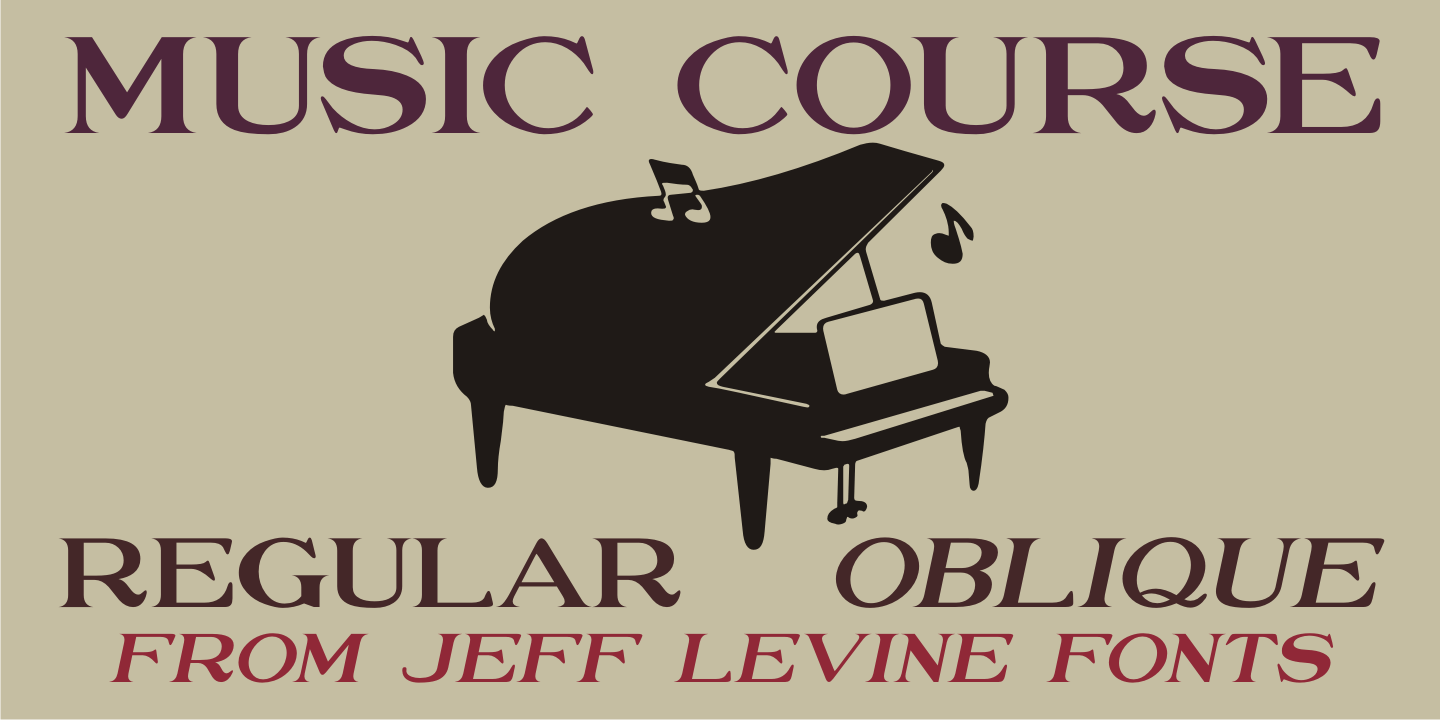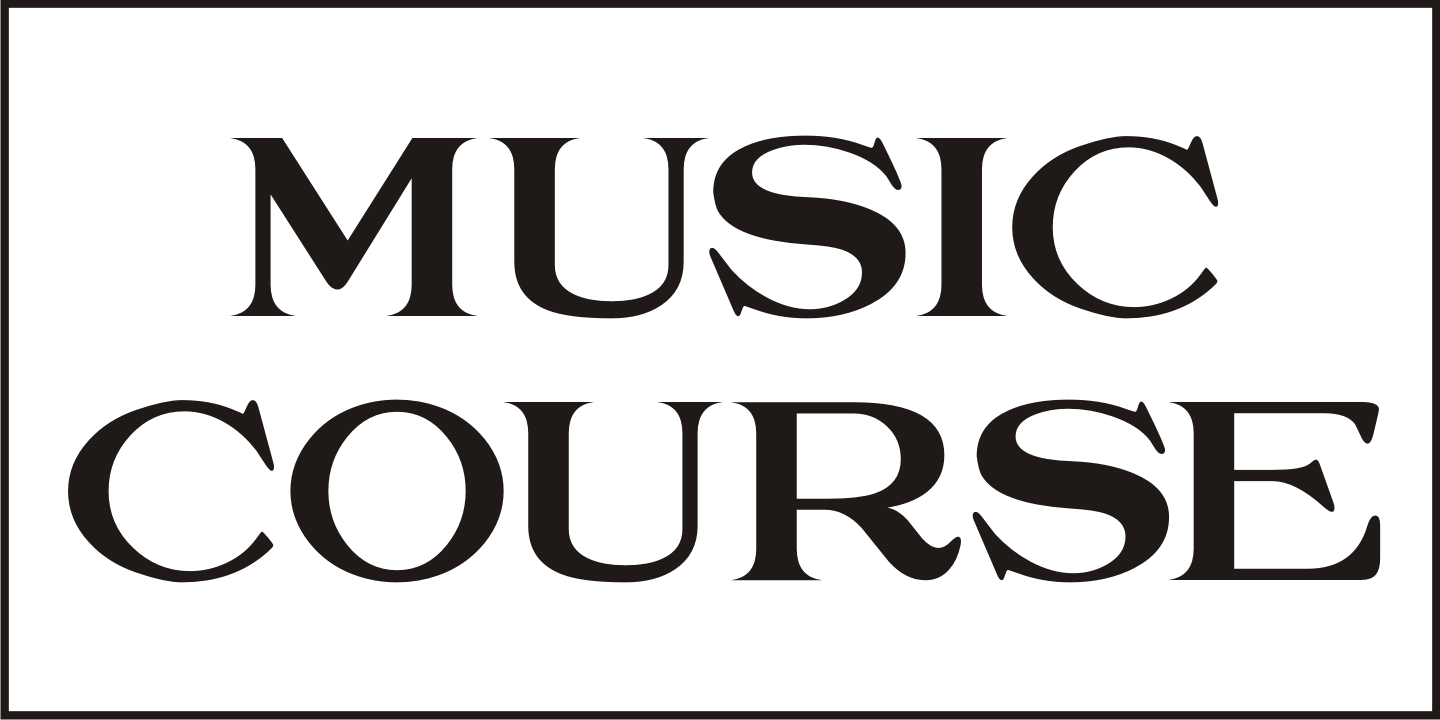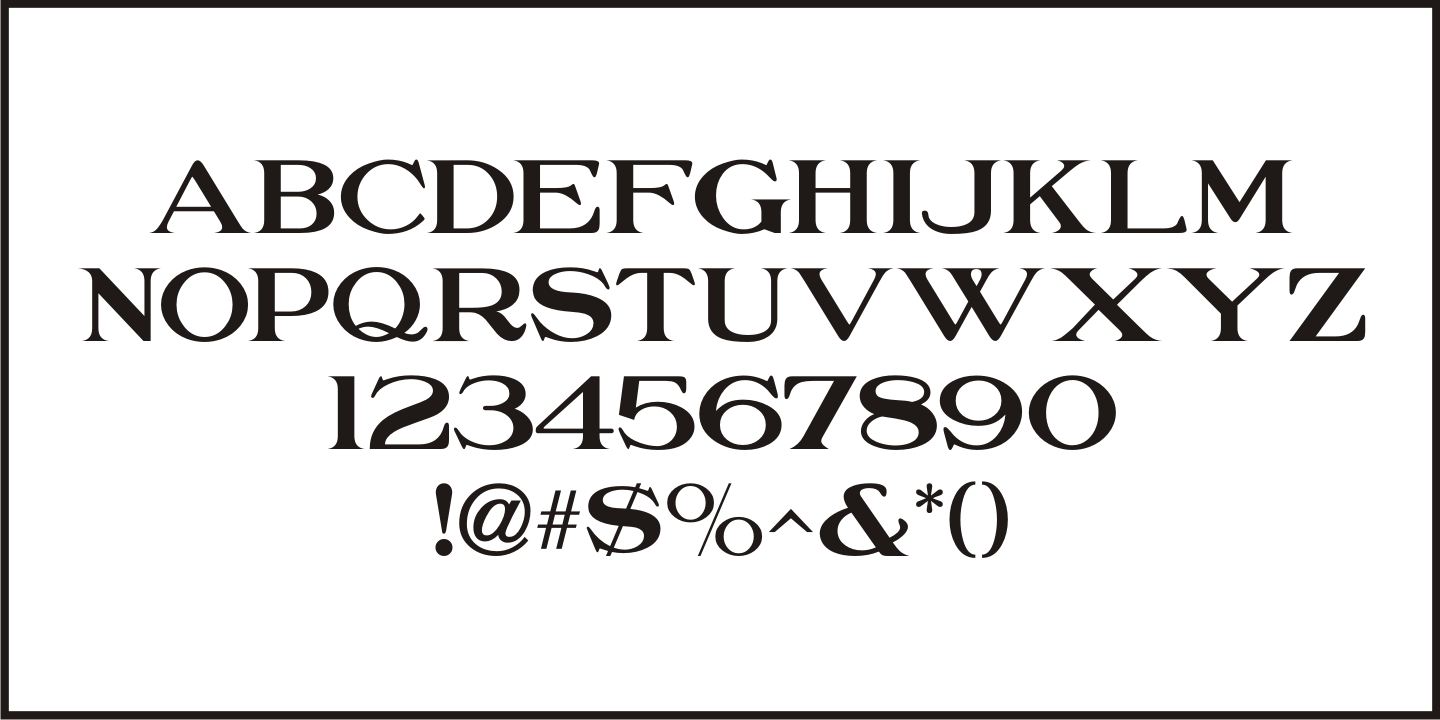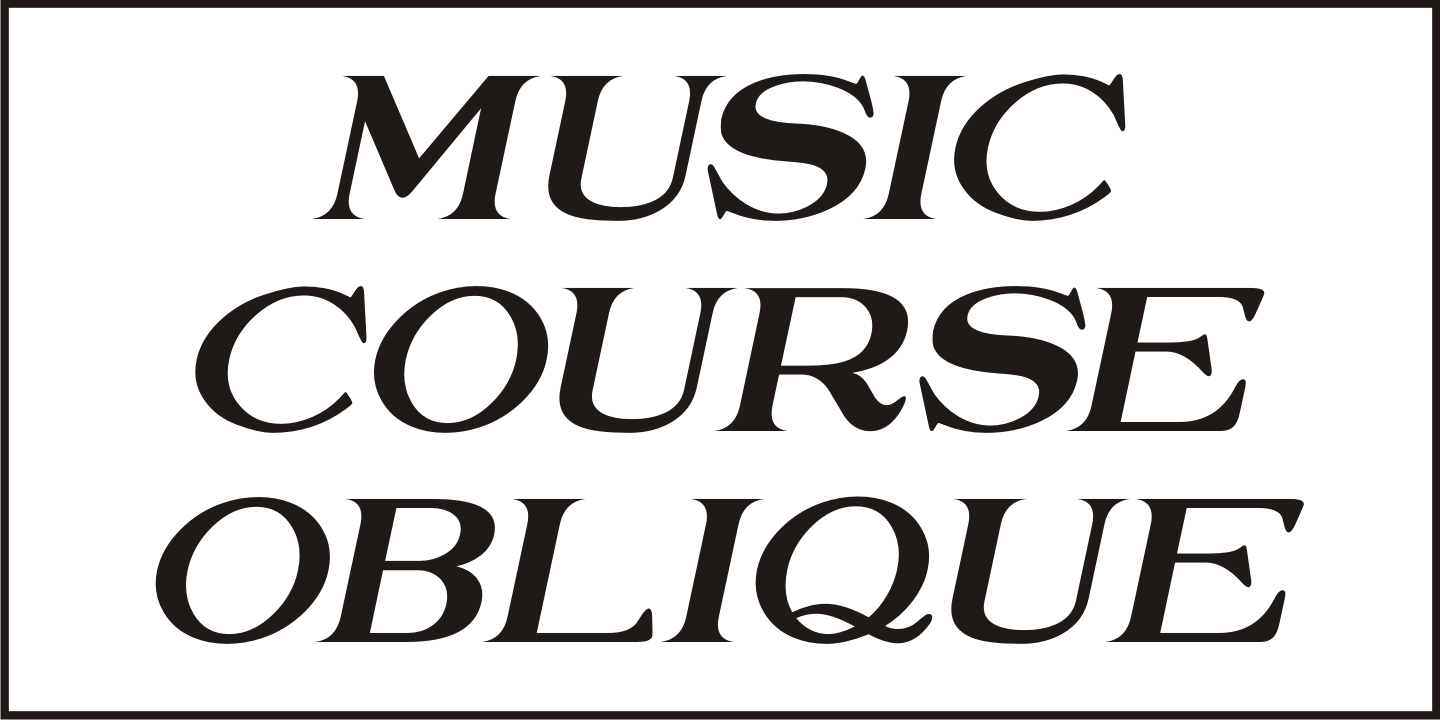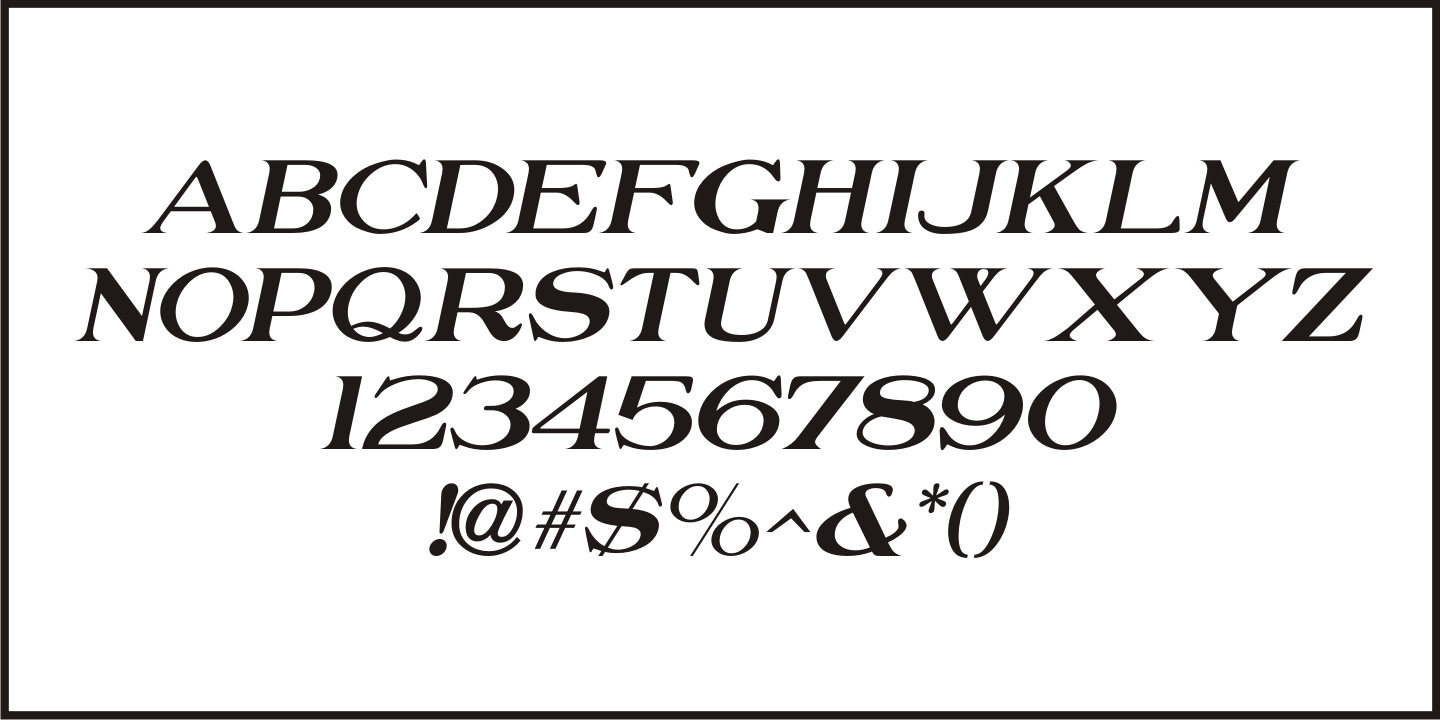
Music Course
The 1927 beginner's book for Shefte's Rapid Course in Modern Piano Playing had its title hand lettered in a bold serif typeface that reflected some of the influences of the Art Nouveau era.
This became the model for Music Course JNL, which is available in both regular and oblique versions.
Music Course JNL Regular by Jeff Levine Fonts